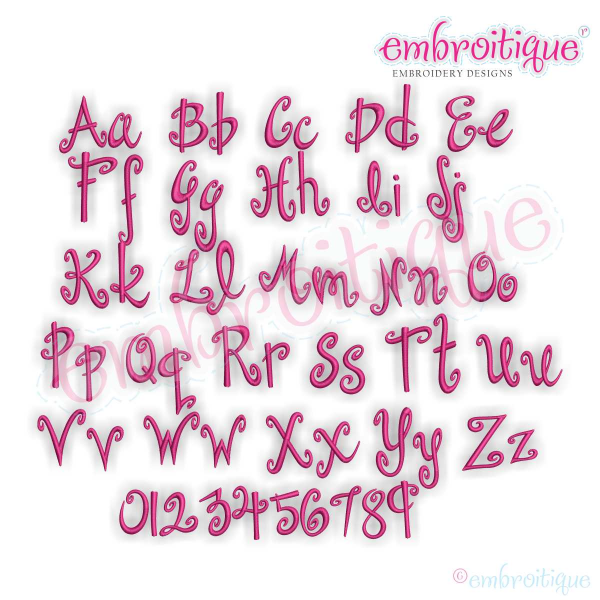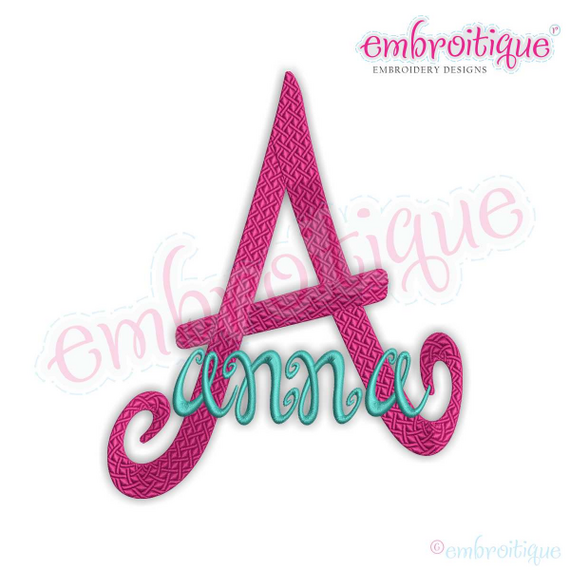
Princess Anna Monogram Set - Medium - 3", 4", 5" - Fun curly whimsical font
3", 4", 5" Aa-Zz 0-9
This set is wonderful to use on higher pile fabrics like towels & blankets. A beautiful patterned fill stitch